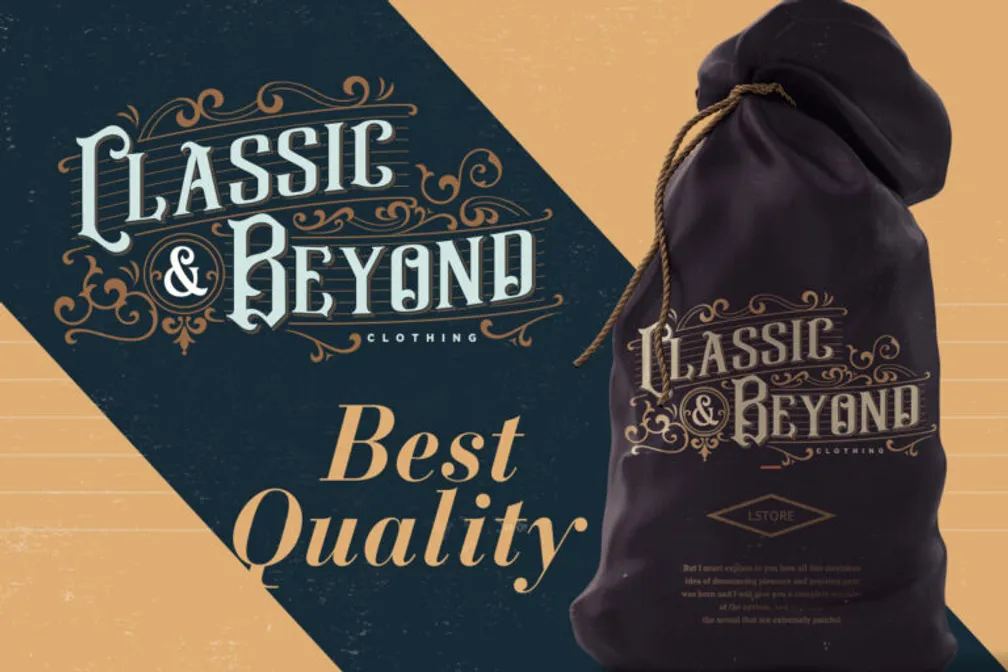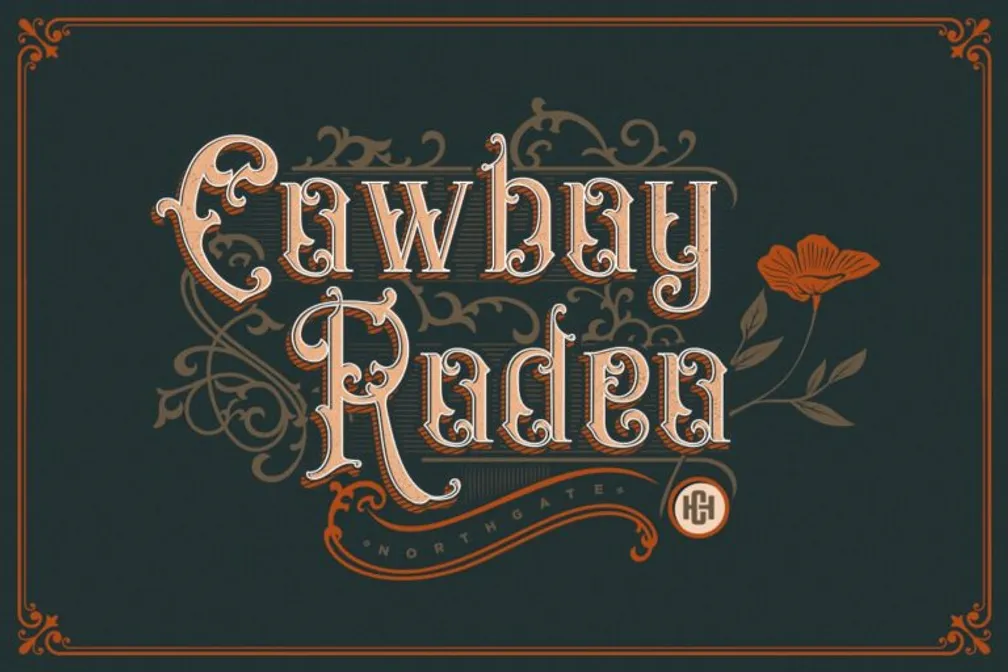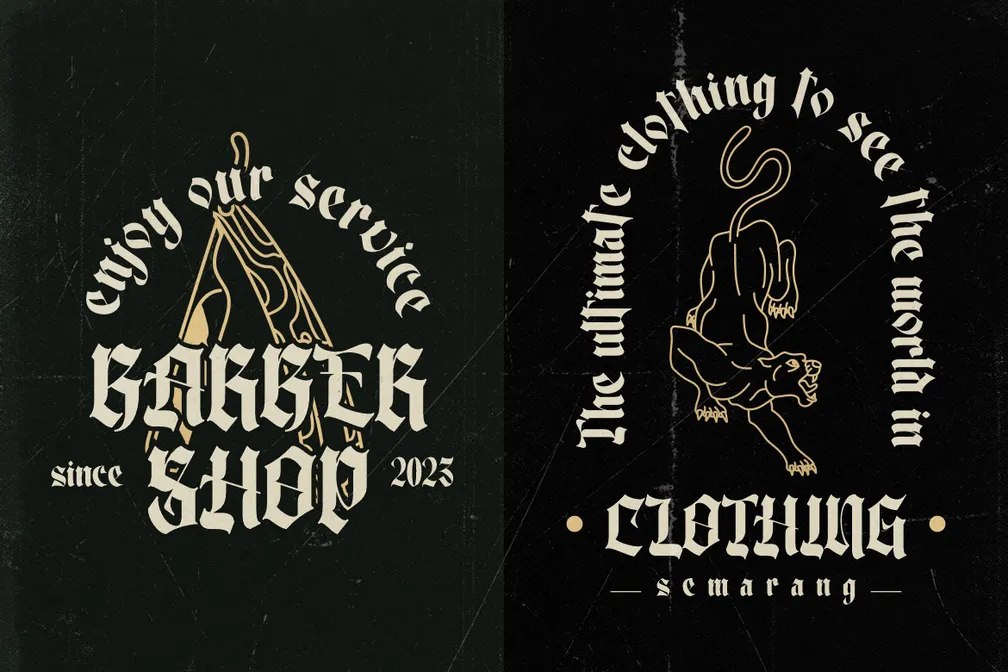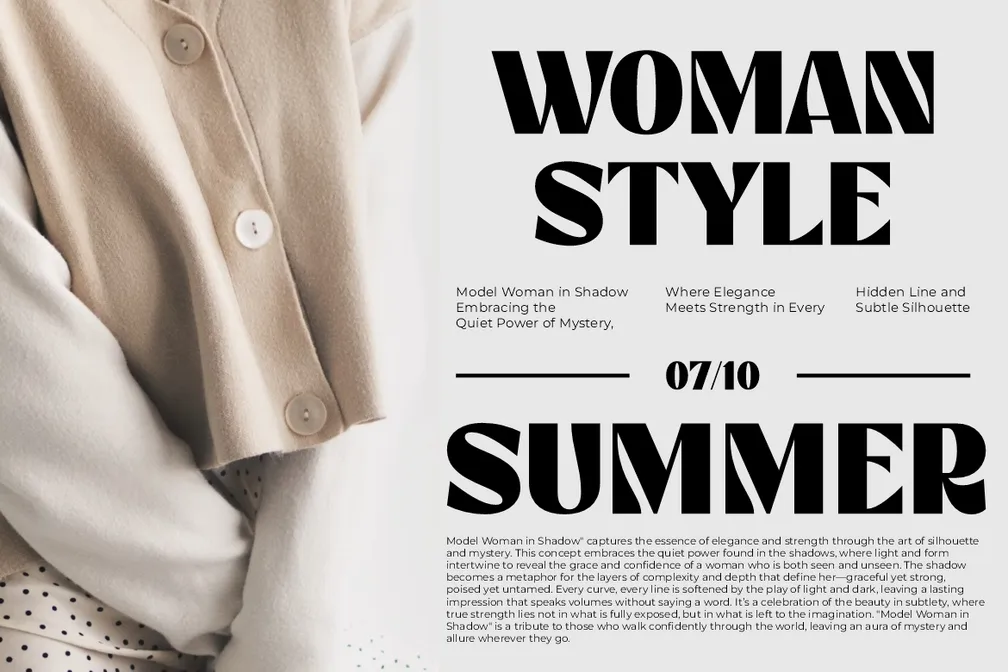
20+ Popular Fonts for Shirts: Turn Your Designs Into Eye-Catchers
Popular fonts for shirts are often chosen based on style alone, yet typography actually determines how people perceive and read a clothing design. In addition, readability studies show that legibility depends on factors such as stroke width, spacing, and contrast, especially when text is viewed from a distance.
Because shirts exist in real-world environments, factors like print technique, fabric color, and spacing matter just as much as style. In this guide, you’ll learn how to choose a font that enhances both aesthetics and clarity.
Key Takeaways:
- Choose fonts that balance style, readability, and print compatibility.
- Match font style with your brand identity and target audience.
- Test and refine your design to create a unique, elegant shirt look.
5 Ways to Choose the Right Font for Shirts
Choosing the right fonts for shirts is not just about what looks good on screen. Here are five practical factors to consider before finalizing your design:
- Prioritize legibility: Ensure the text is easy to read from a distance with proper spacing, weight, and contrast.
- Align with your style: Choose a font that reflects your style, target audience, or brand personality while staying relevant to current design trends.
- Consider print resolution and method: Thin or detailed fonts may not print well in screen printing or low-resolution techniques. Always test at actual size.
- Test on different fabrics and colors: Ensure the font remains clear and impactful across various shirt materials and backgrounds.
Match the Font Style With Branding and Fashion Trends
With various font styles available, choosing the right typeface can instantly improve both the look and value of a design. Here are 20 popular fonts for shirts to inspire your T-shirt design. Let’s take a look!
1. Tropi Land
Tropi Land features soft, wavy lettering with a playful handwritten feel, perfect for giving T-shirt designs a relaxed and cheerful tropical vibe.
2. Dark North
Combining gothic inspiration with a contemporary finish, Dark North delivers a friendly but strong character that works well for streetwear and statement apparel.
3. Hanela Rusty
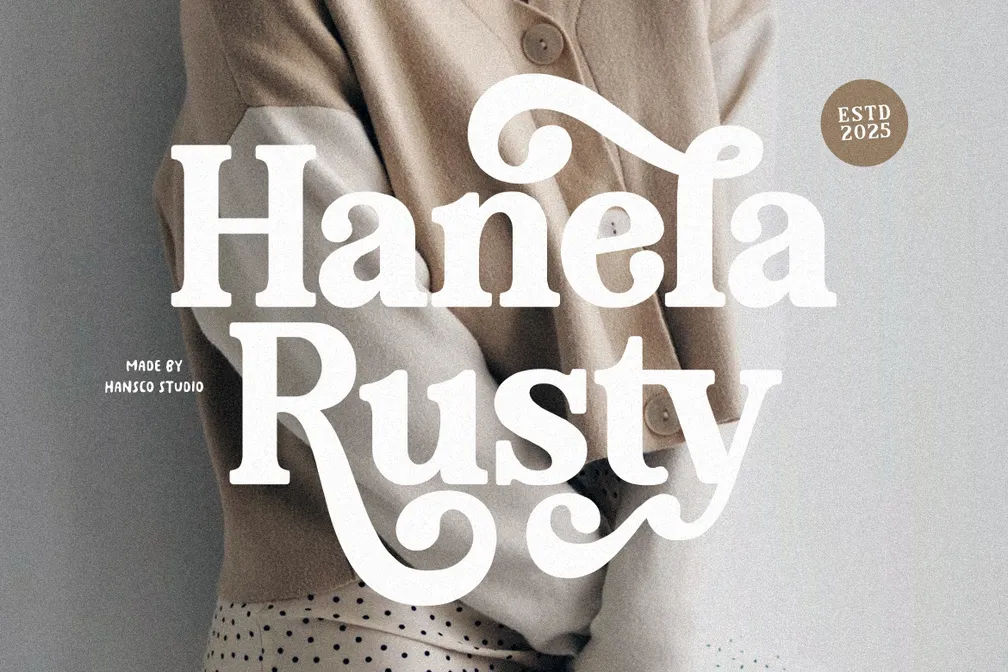
Hanela Rusty delivers a timeless retro aesthetic through bold serif lettering, enhanced by decorative swashes that add a distinctive vintage touch to apparel designs.
4. Sunday Eighties
Sunday Eighties offers a clean vintage look through bold serif lettering, perfect for creating a timeless and eye-catching shirt design.
5. Holiday Mango
Holiday Mango combines chunky slab lettering with rounded details, a distinctive modern-retro style often seen in popular fonts for shirts, and is designed to easily stand out.
6. Asterisk
If you want to leave a sweet impression, Asterik is a worthy choice. It features delicate swashes that add a graceful and expressive touch in any color you choose.
7. Baby Bunny
As cute as the name, Baby Bunny, comes as one of the 20 best fonts for shirts to boost your brand. It gives a playful and friendly look to the shirt design by combining a soft script with a clean serif to give a cheerful character.
8. The Spectre
For a stylish and sophisticated impression, The Spectre is worth a place in your collection. It instantly makes any text appear refined and creates a graceful look on shirt designs.
9. Redotic
If you are looking for a shirt font with strong lines and a contemporary style, Redotic is a great choice. It offers a modern sans-serif appearance through bold lettering, giving designs a sharp and energetic visual impact.
10. Stay Peach
For a cute yet eye-catching shirt design, Stay Peach is a great pick. The bold retro sans-serif lettering and bubbly character create a fun modern-retro look often associated with popular fonts for shirts.
11. Kora Kora
Kora Kora is a playful display sans-serif font with rough textured edges. It brings a fresh and carefree vibe that instantly makes apparel designs more exciting.
12. Boldern
Enjoy a nostalgic and aesthetic feel at once! With its timeless vintage lettering, Boldern gives designs a warm and sophisticated retro look to support your style!
13. Graphite
Graphite brings a vintage sign-painting feel through its layered lettering, giving you flexible styling options to create more expressive apparel designs.
14. Bandits
With its rugged vintage character, Bandits brings a raw and earthy feel that works beautifully for outdoor and heritage-inspired apparel. Make your designs stand out with a bold rustic style.
15. Eastblue
This one of the popular fonts for shirts features elegant calligraphy details and gentle letterforms that create a stylish and charming impression. It is perfect for designs that want a clean yet artistic touch.
As a final tip, always test your design on a mockup, limit the number of fonts, and maintain strong contrast with the fabric color. If you are looking for distinctive typefaces, explore collections from HansCo Studio to help your brand stand out, reinforce its identity, and express a more personal message in every design.